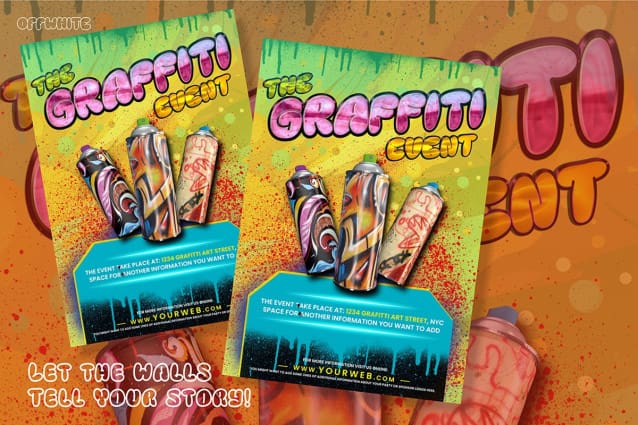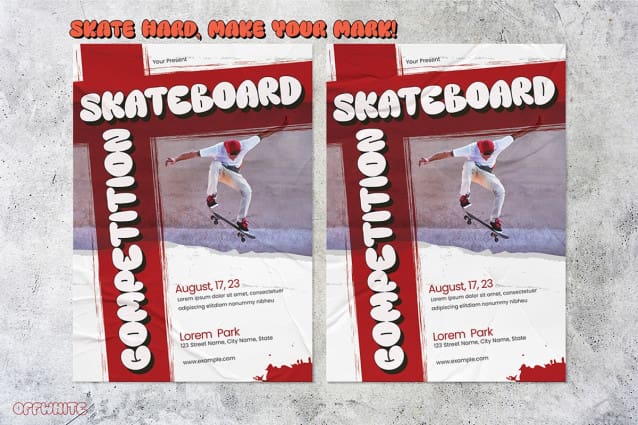
Offwhite Display Font
Offwhite Display Font is a bold and expressive graffiti-inspired font, perfect for brands that live and breathe street art culture.
Its sharp, urban edge brings a distinctive style to any design, giving your projects an authentic graffiti vibe. Whether for logos, merchandise, or social media, Offwhite adds a touch of raw, artistic flair. Ideal for brands looking to stand out with a vibrant, street-smart identity.